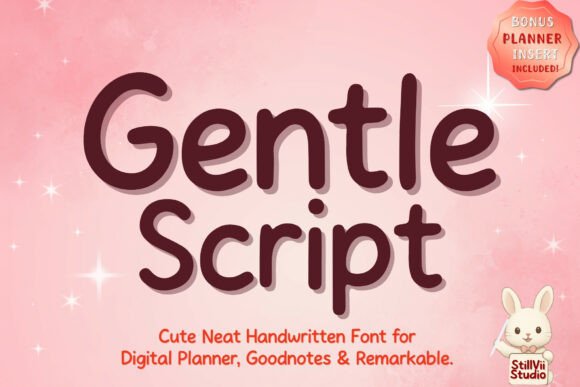
Gentle Script: A Clean Handwritten Typeface for Web
I was staring at a blank hero section for a boutique coaching website, trying to find the right balance between approachable and professional. The client wanted something that felt personal, like a note from a friend, but she also needed it to load instantly on mobile devices without losing its charm. That is when I decided to test Gentle Script. As a web designer who spends hours curating digital brand identities, I have seen countless script fonts fail in production because they are too decorative or simply unreadable on smaller screens. Gentle Script, however, immediately stood out as a different kind of tool in the Script Amp category.
This isn't just another flowery display font; it is a clean, minimalist handwritten typeface designed with modern typography principles in mind. When I first dropped it into my design file, the strokes felt incredibly tidy and organized. It has that warm, human touch of a genuine handwritten font, yet it maintains a level of legibility that is rare for this style. For digital product creators and UI designers, finding a premium font that bridges the gap between artistic flair and functional readability is often the hardest part of the job. Gentle Script seems to solve that problem effortlessly.
Testing Readability in Hero Sections and Headlines
The first real test came when I applied Gentle Script to the main headline of a landing page. In web design, the hero section is prime real estate where you need to capture attention within seconds. Often, script fonts can become messy when scaled up, creating visual noise that distracts the user. With Gentle Script, the characters remained distinct and clear even at large sizes. The minimalism of the design allows the text to breathe, making it an excellent choice for short phrases, titles, and key value propositions.
I experimented with placing the font over a light background image, a common scenario in web design for creative portfolios and lifestyle brands. The contrast held up beautifully without needing heavy drop shadows or outlines, which can sometimes make a site look dated. This clean aesthetic suggests that Gentle Script works particularly well for brands that want to project warmth and authenticity without sacrificing professionalism. Whether it is a welcome message on a coaching site or a featured title on a blog redesign, the font commands attention while inviting the reader to engage further.
Mobile Responsiveness and User Experience
One of the biggest challenges with using Fonts in digital layouts is ensuring they perform well on mobile devices. Screen real estate is limited, and users are scanning content quickly. I tested Gentle Script on a simulated mobile view, reducing the font size significantly to see how the details held up. Many handwritten styles lose their definition when shrunk down, turning into illegible blobs. Gentle Script, however, retained its neat structure. The open counters and consistent stroke width ensure that even on a small smartphone screen, the text remains readable.
This makes it a viable option not just for headlines, but also for call-to-action areas and section dividers where a touch of personality is needed. However, it is important to be strategic. While the font excels in headers and accents, it is not intended for long paragraphs of body copy. In a responsive layout, using a script font for dense text can hinder accessibility and slow down reading speed. Instead, Gentle Script shines when used sparingly to guide the user's eye through the visual hierarchy. It acts as a gentle nudge, adding emotional appeal to the interface without overwhelming the user experience.
Strategic Font Pairing for Digital Brands
To truly maximize the potential of Gentle Script in a commercial project, thoughtful font pairing is essential. In my testing, I found that the font pairs exceptionally well with a clean, geometric sans serif font for body text. The contrast between the organic curves of the script and the rigid structure of a sans serif creates a balanced and modern editorial design feel. This combination is perfect for online stores, course sales pages, and digital brand kits where clarity and style must coexist.
Alternatively, if you are aiming for a more traditional or sophisticated look, pairing Gentle Script with a simple serif font can elevate the perceived quality of the brand. This approach works well for luxury goods, wedding planning services, or high-end consulting websites. The key is to let the script font handle the emotional hook—the "hello" or the "thank you"—while the secondary font handles the informational heavy lifting. By combining these elements, you create a cohesive brand identity that feels curated and intentional rather than random.
Best Practices and Licensing for Commercial Use
Before integrating any new typeface into a client project or your own business assets, it is crucial to review the technical specifications and licensing terms. Gentle Script comes with a set of features that make it versatile for various digital applications, including alternates and ligatures that add character to logo design and social media graphics. Always check if the license covers web usage, specifically looking for webfont availability (WOFF/WOFF2 formats) to ensure fast loading times across all browsers.
As a creator, understanding the scope of your license is vital. If you plan to use this font for a client's website, an online store, or digital templates, ensure you have the appropriate commercial font license. Some licenses may restrict the number of domains or require a separate purchase for extensive use. Additionally, consider the multilingual support if your audience is global. While Gentle Script is optimized for English-centric projects, verifying language coverage prevents awkward gaps in your text later on.
In conclusion, Gentle Script offers a refreshing take on the handwritten style, proving that a font can be both beautiful and highly functional in a digital environment. It is a reliable asset for web designers and digital product creators looking to inject personality into their work without compromising on usability. Whether you are building a landing page, designing a portfolio, or crafting a unique brand voice, this creative font provides the perfect blend of elegance and clarity. By using it strategically in headers and accents, and pairing it wisely with robust body fonts, you can create digital experiences that resonate deeply with your audience.